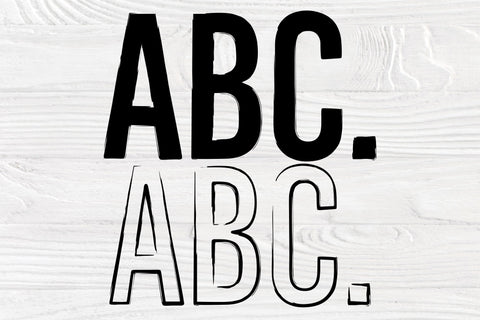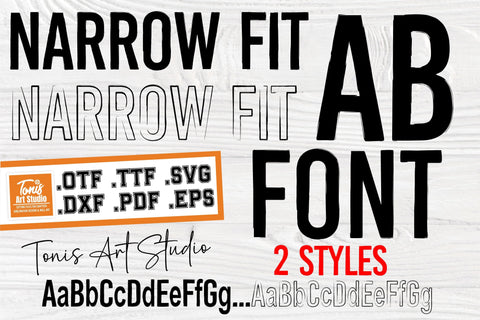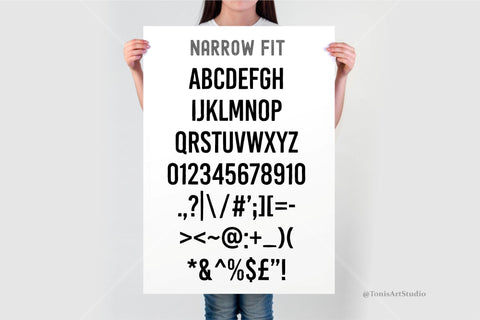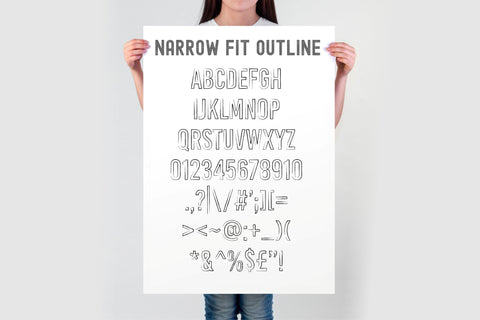
Give your designs a sleek and modern edge with the AB Narrow Fit font, now available in two distinct styles: Regular and Outline. This versatile typeface is perfect for projects that need a narrow, dynamic look, from sports branding and team posters to urban streetwear and custom merchandise. The bold Regular style delivers a strong, clean appearance, while the Outline version adds a more playful and creative touch, providing endless design possibilities. Ideal for Cricut, Silhouette, and other cutting machines.
Two styles: Regular and Outline for varied design options.
Bold capital letters and numbers (0123456789) included in both styles.